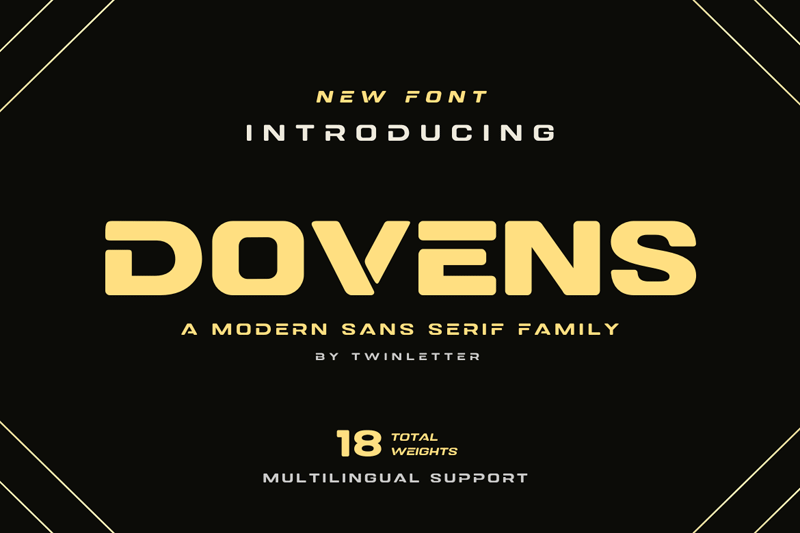
Font name: | Dovens |
Dovens is our newest family of san serif fonts. This evolutionary typeface was created to bring luxury and a unique feel to your designs. The collection includes 18 different styles, making them perfect for a variety of projects. This font provides unique anatomy for optimizing beauty and personality � including titles, text, large paragraphs, logos, posters, and more. Dovens has everything you need to create stunning graphics � and more importantly � leave a lasting impression on your audience. Terms Of Use By downloading or using our font, you are read and accepted to the Our Term and Use Agreement : This font is copyrighted and protected by the law. Usage of this font on any work without a proper license is deemed illegal. You might get fined at least USD 3000 for this act. Please do understand that we have our own system for tracking the usage of our works on the internet. 1. This font is Demo ONLY, FOR PERSONAL USE NO COMMERCIAL USE ALLOWED 2. Click this link to purchase on our website : https://twinletter.com/product/dovens/ - Any donations are acceptable and very appreciated. PayPal account for donation: https://paypal.me/abahrozi Don't forget to follow our social media for updates: Instagram: twinletter Facebook: Twinletter Twitter: @twinletter |